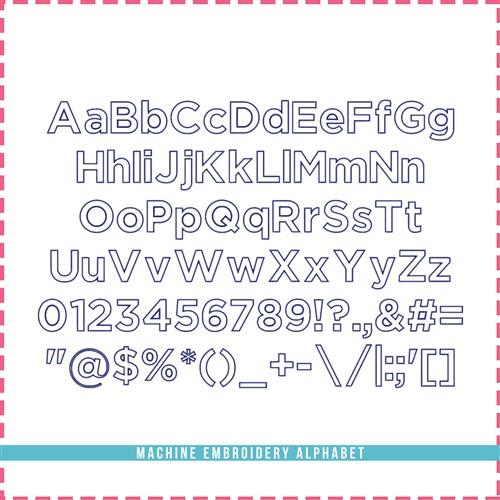
Maya Kreations is happy to present Penny Applique Font machine embroidery font which has Playful applique machine embroidery font in a rounded style, perfect for adding charm to soft surfaces like blankets and pillows. Available in PES, DST & 8 other formats. included. If you would like to view more embroidery fonts and alphabets please search our embroidery fonts page.